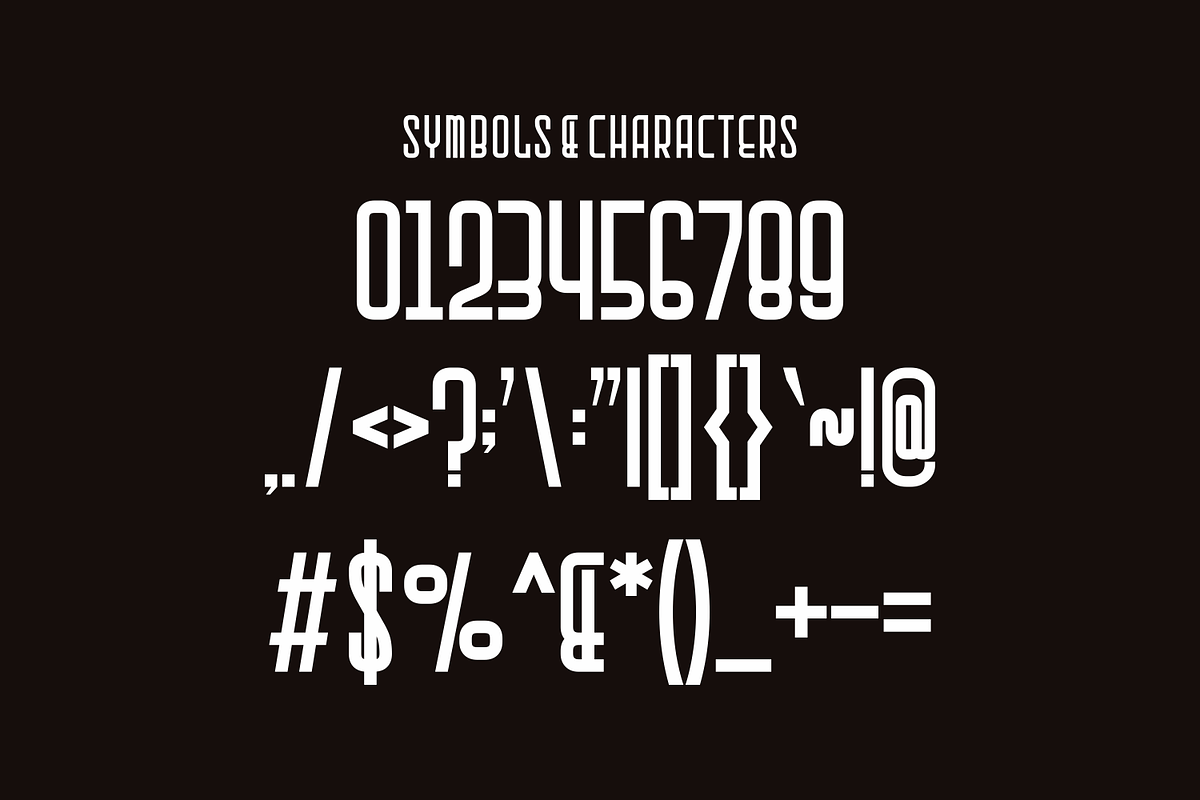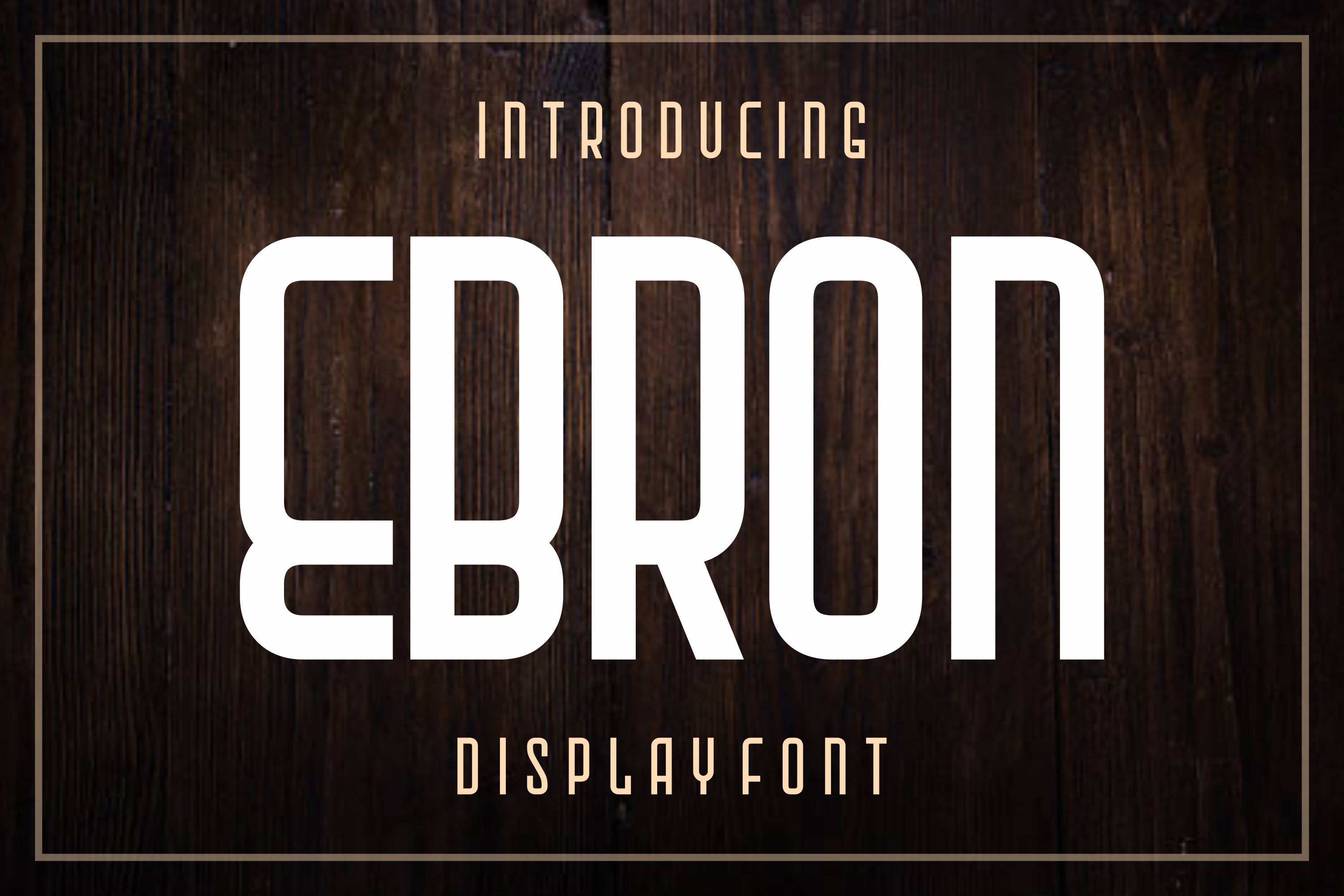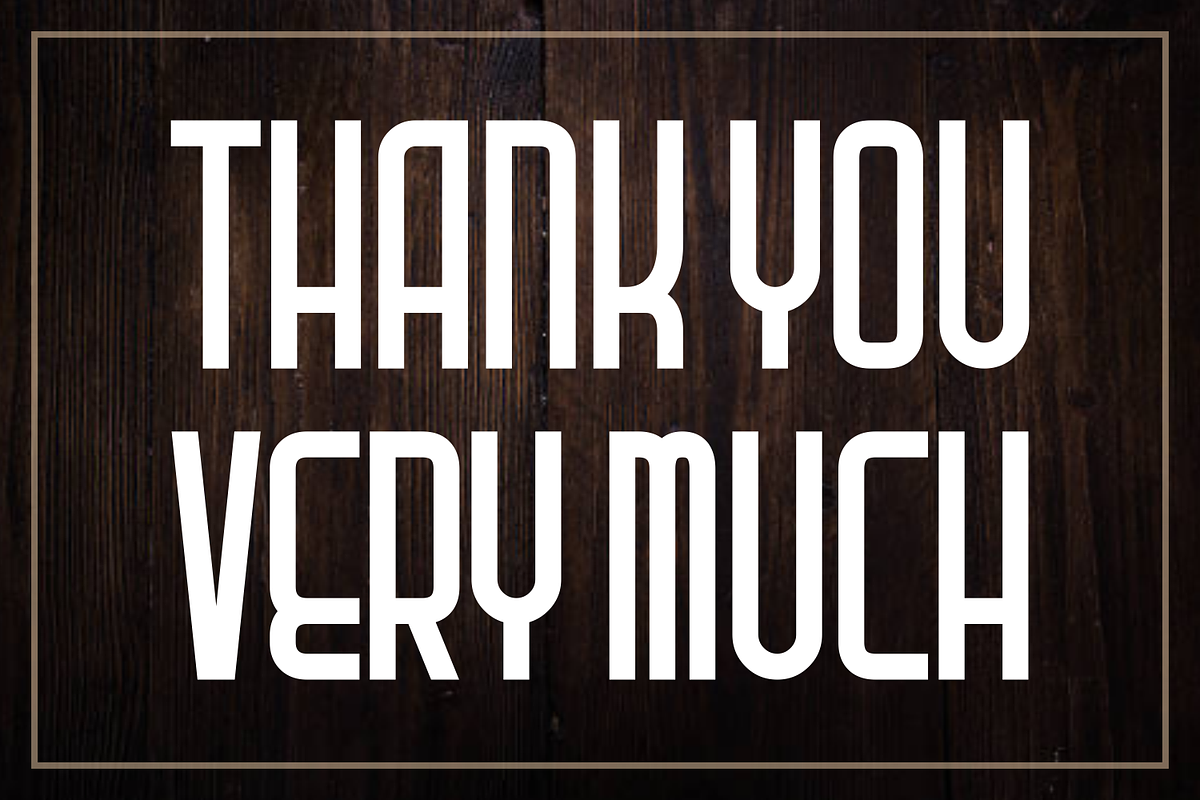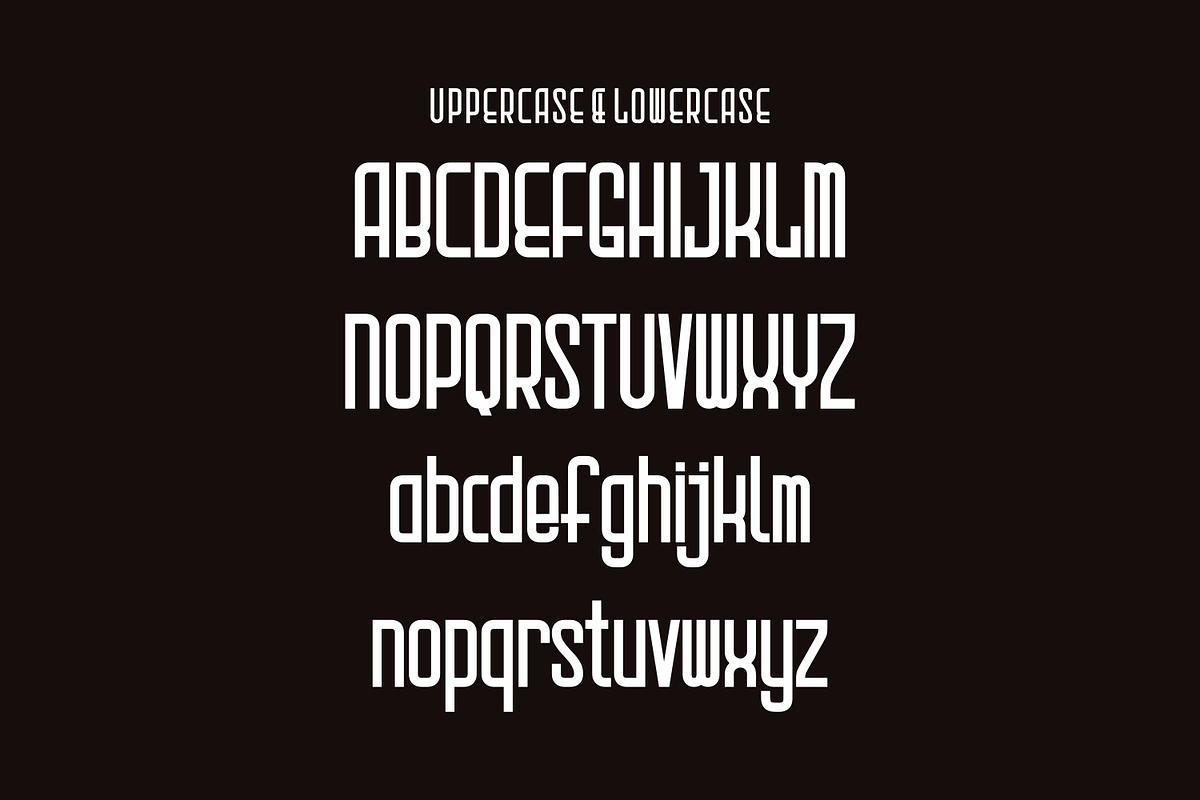
Ebron - Sans Serif Display Font
Ebron - Sans Serif Display Font Perfectly suited on print/screen. it’s perfect for Branding, name card, poster, logo, magazine, cover, banner, t-shirt and headers, or even large-scale artwork.